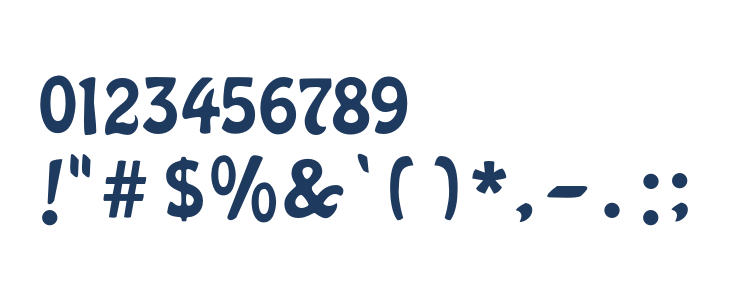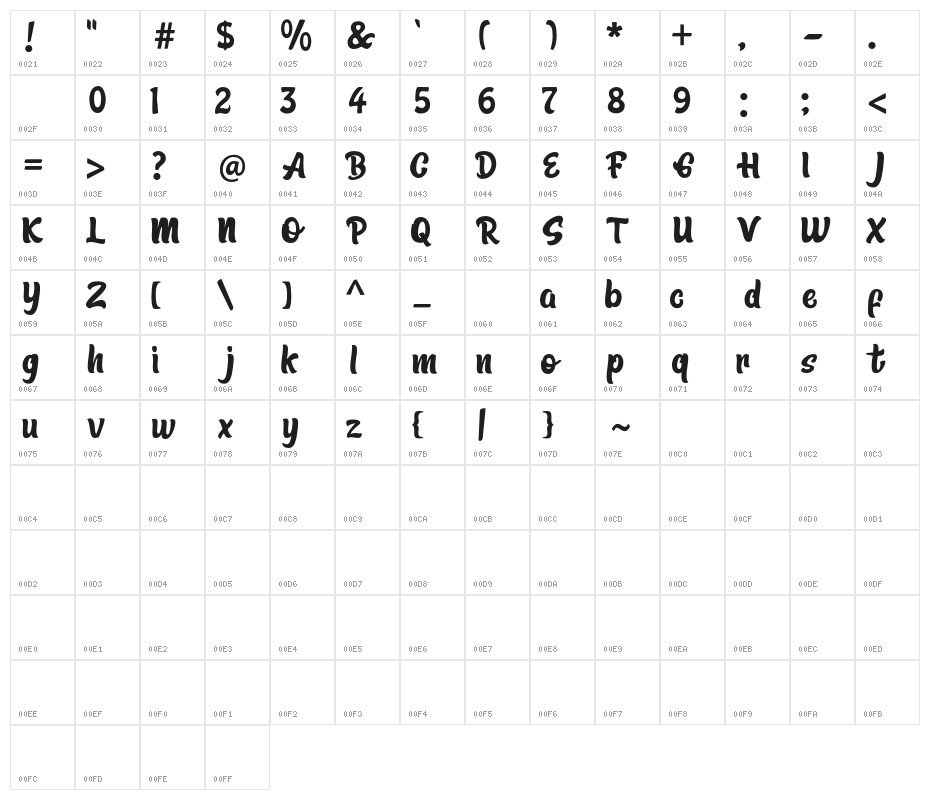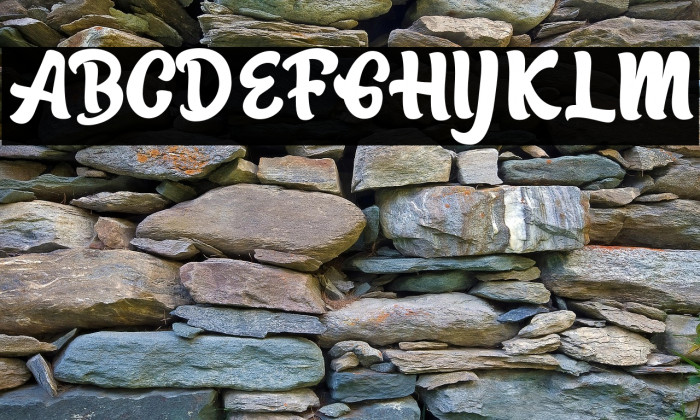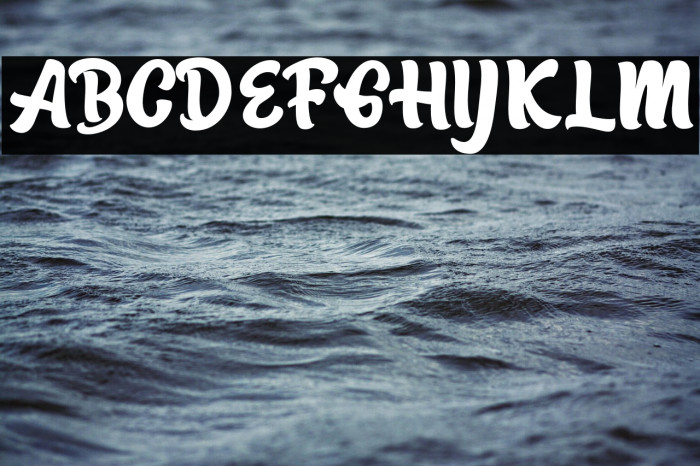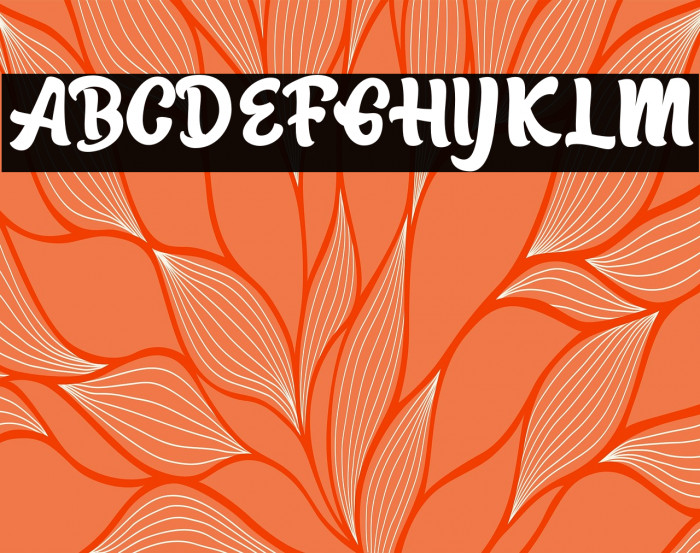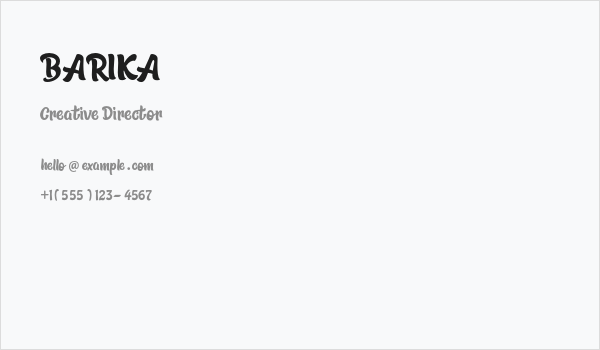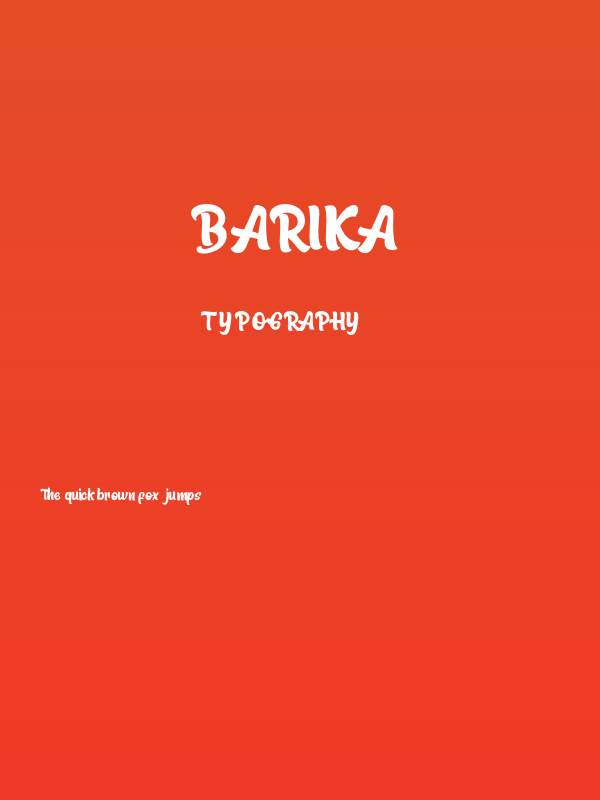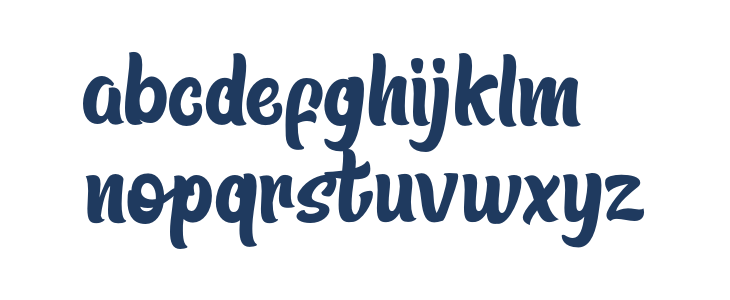
BARIKA Font
BARIKA Description
This font features a bold and playful script style with a handwritten appearance. The characters are rounded and have a flowing, connected form that gives a sense of movement and energy. The uppercase letters are slightly larger and more pronounced, while the lowercase letters maintain a consistent flow. The numbers and special characters match the overall style, adding to the cohesive look. This font exudes a friendly and approachable vibe, making it suitable for creative and informal projects.
| Overall Style | Playful, Handwritten |
| Proposed Projects | Ideal for greeting cards, playful branding, children's books, and creative posters. |